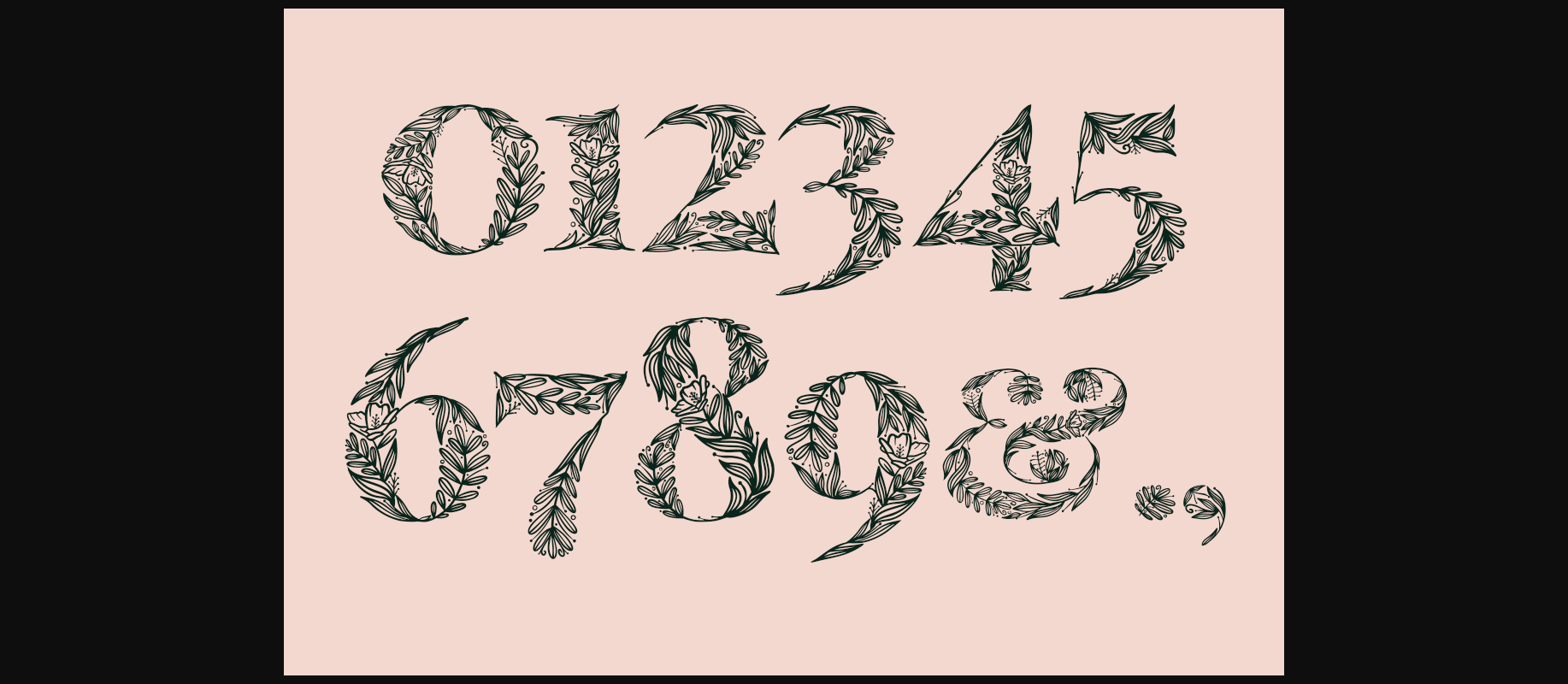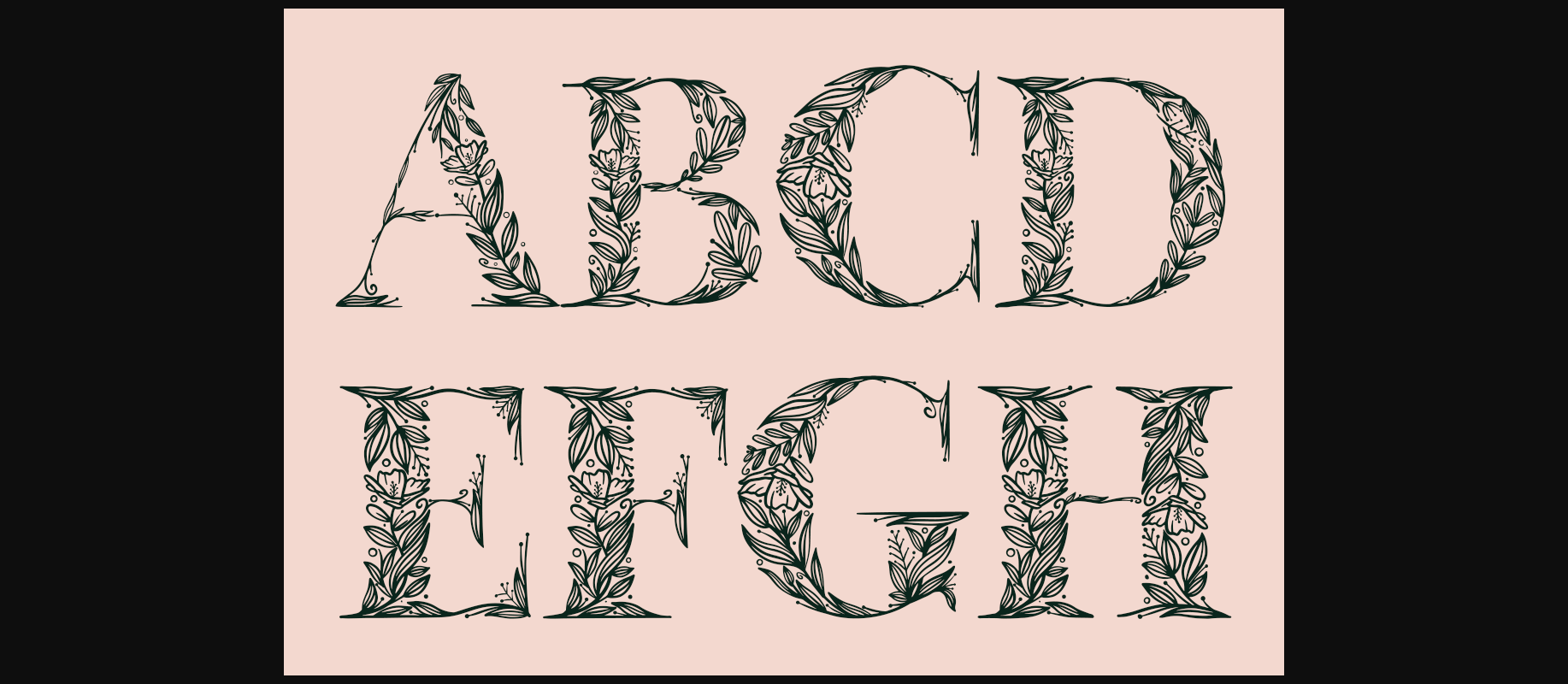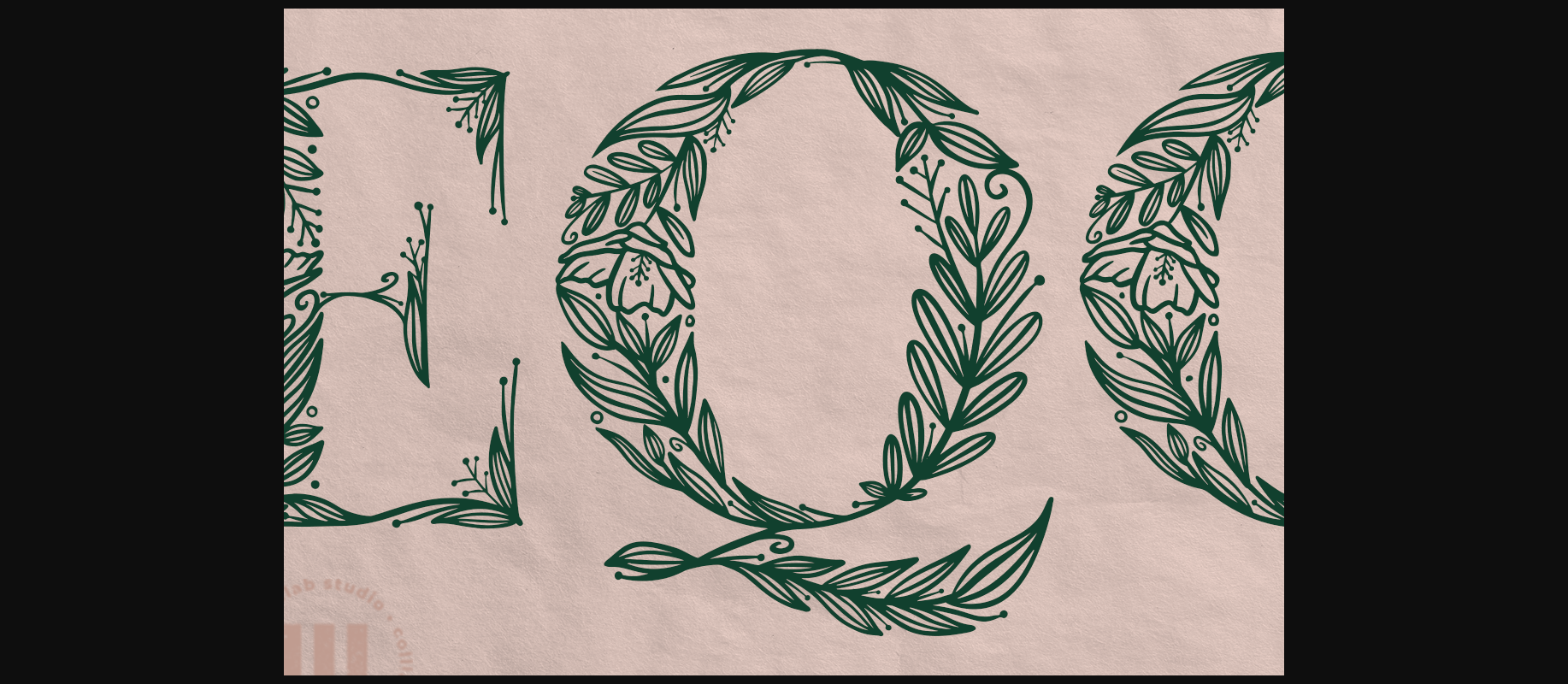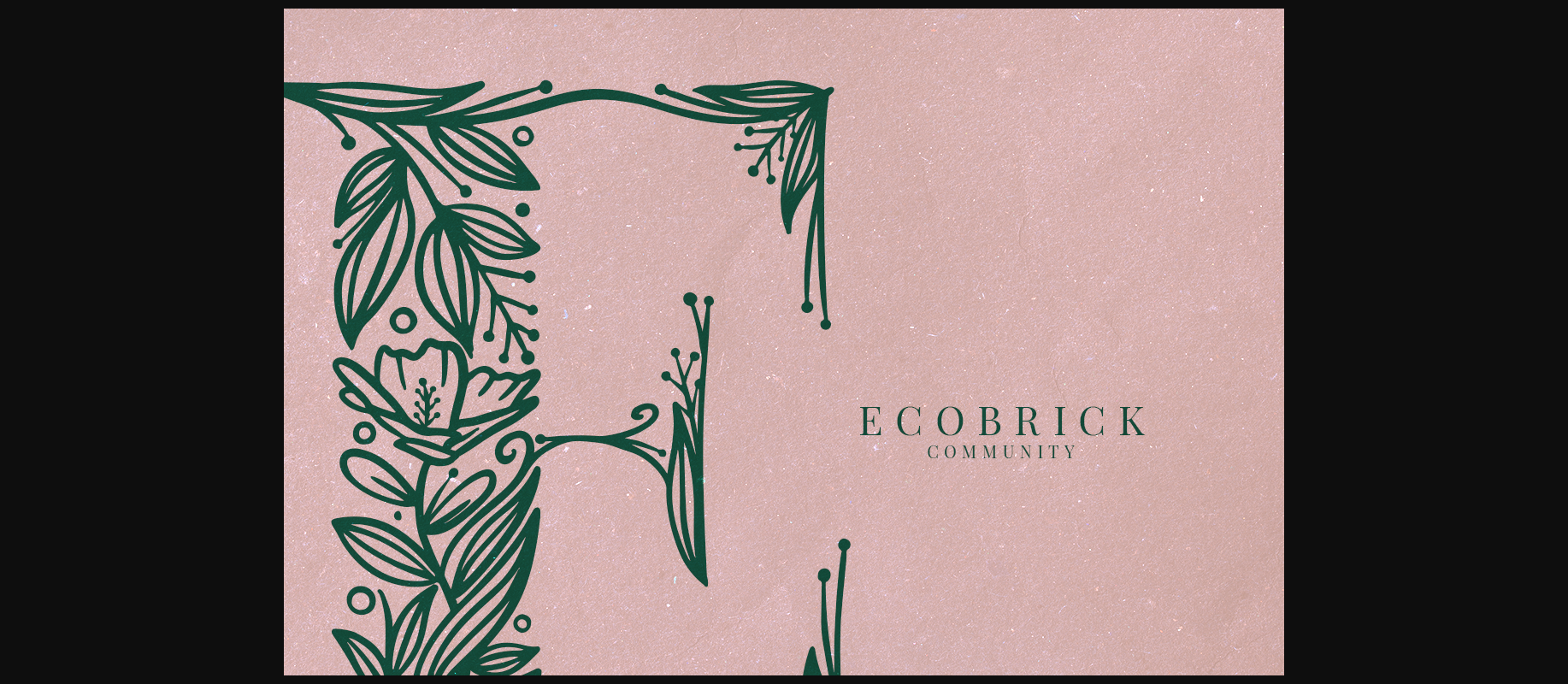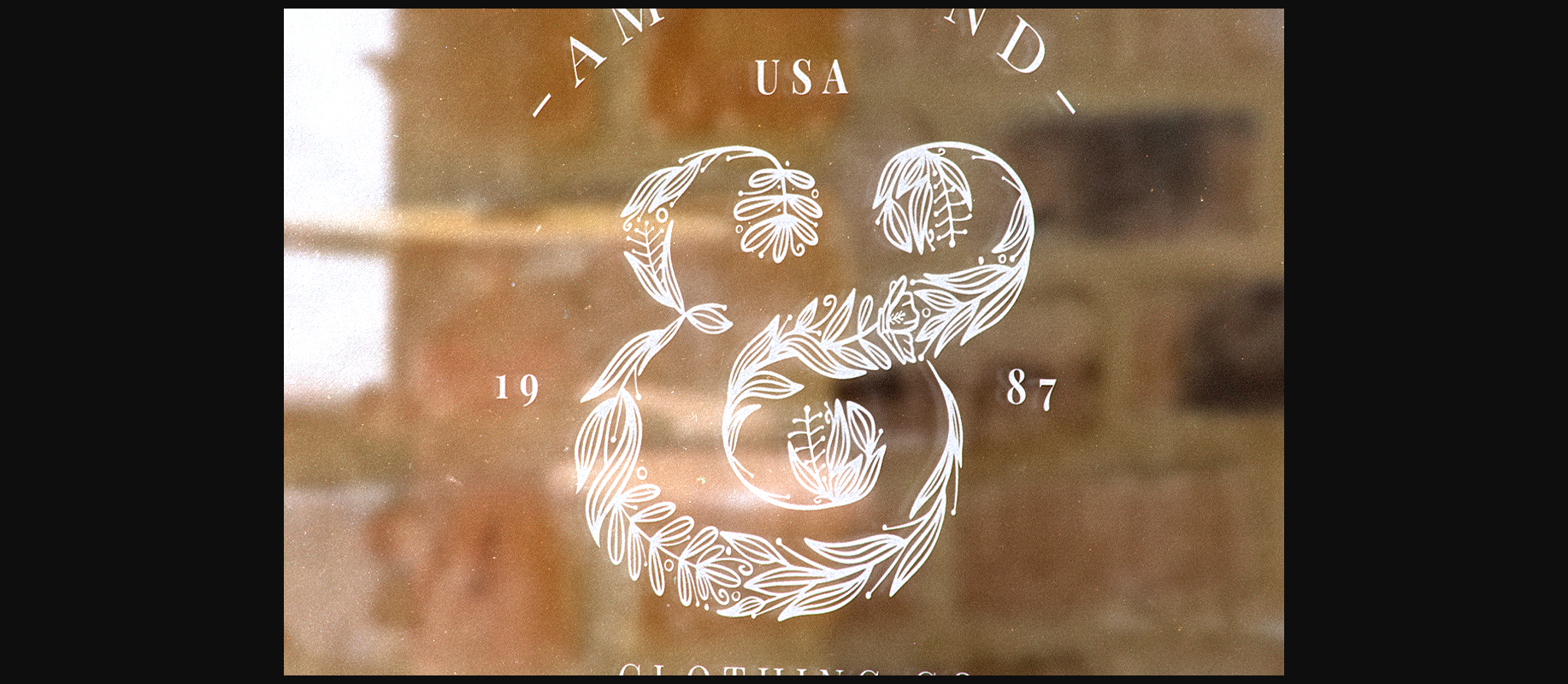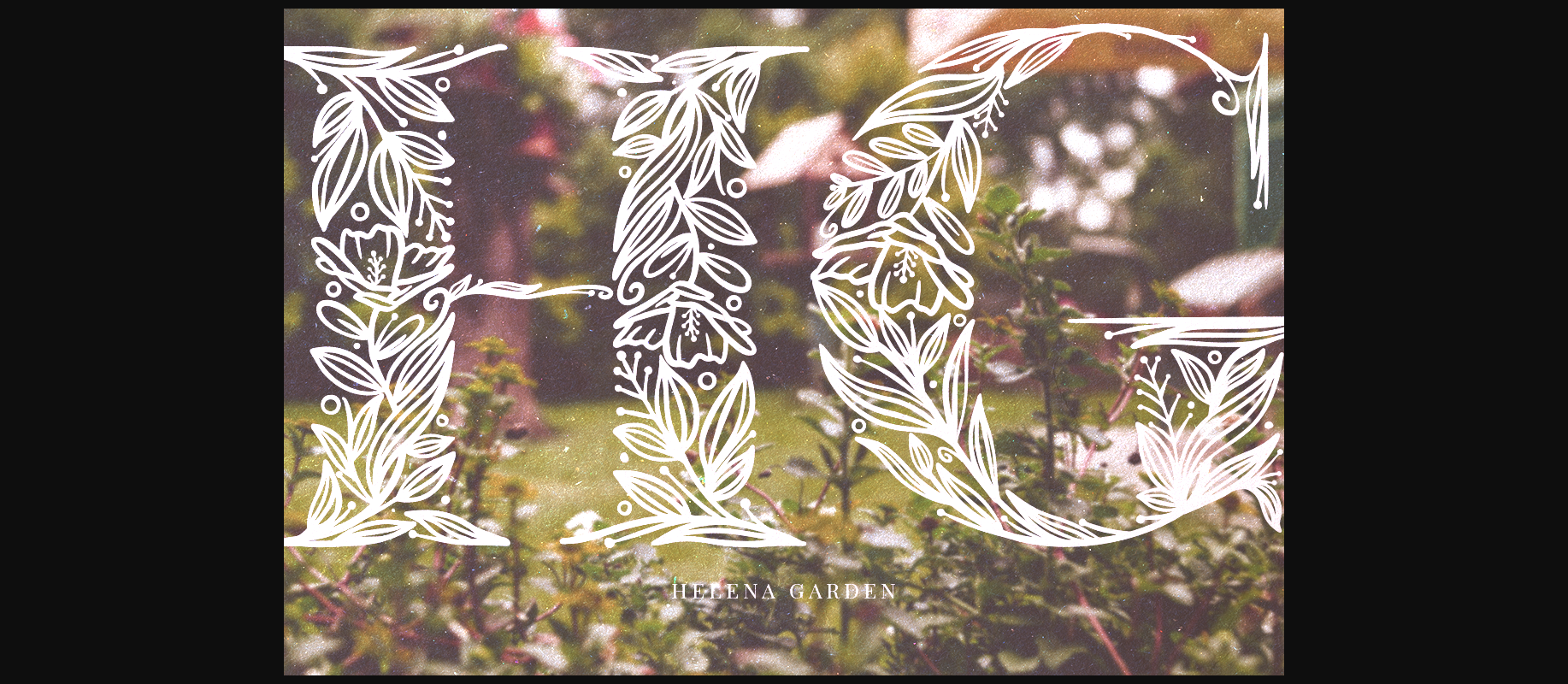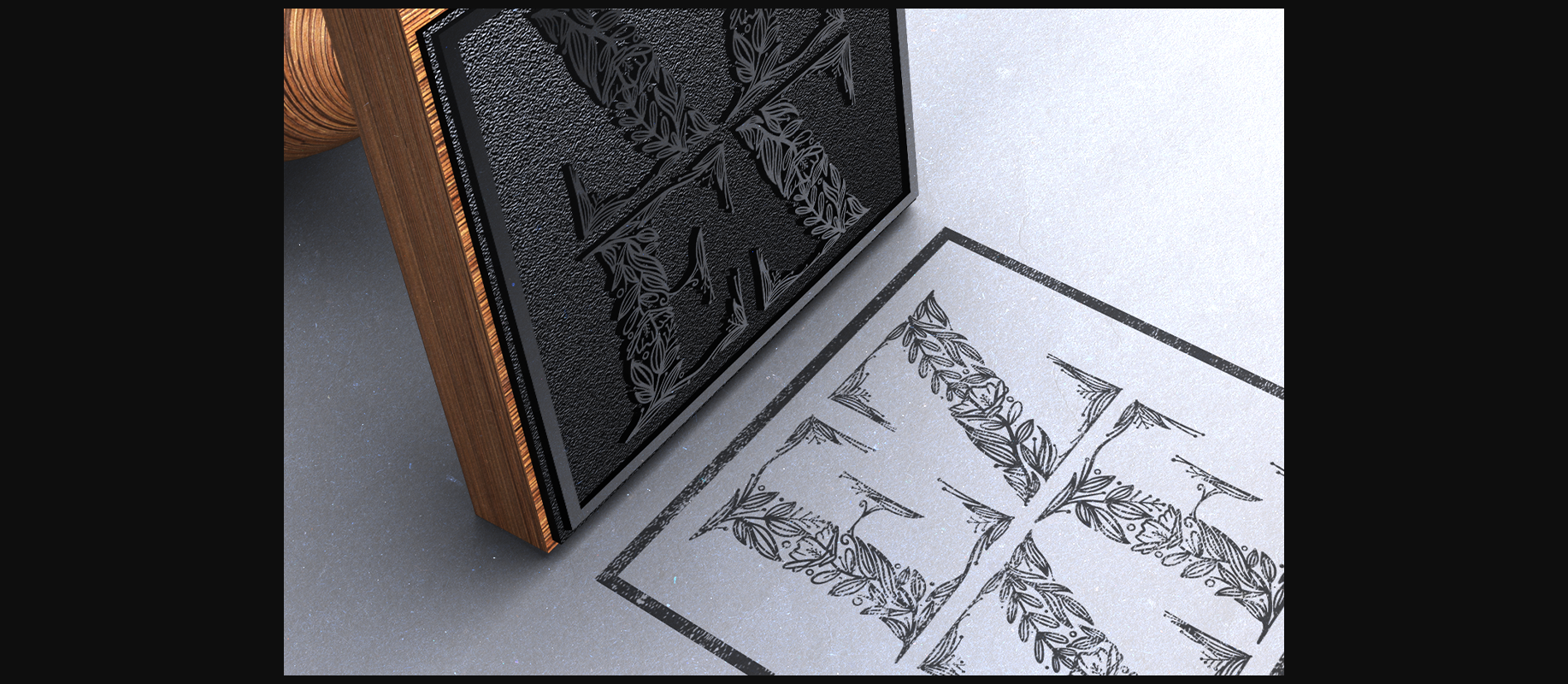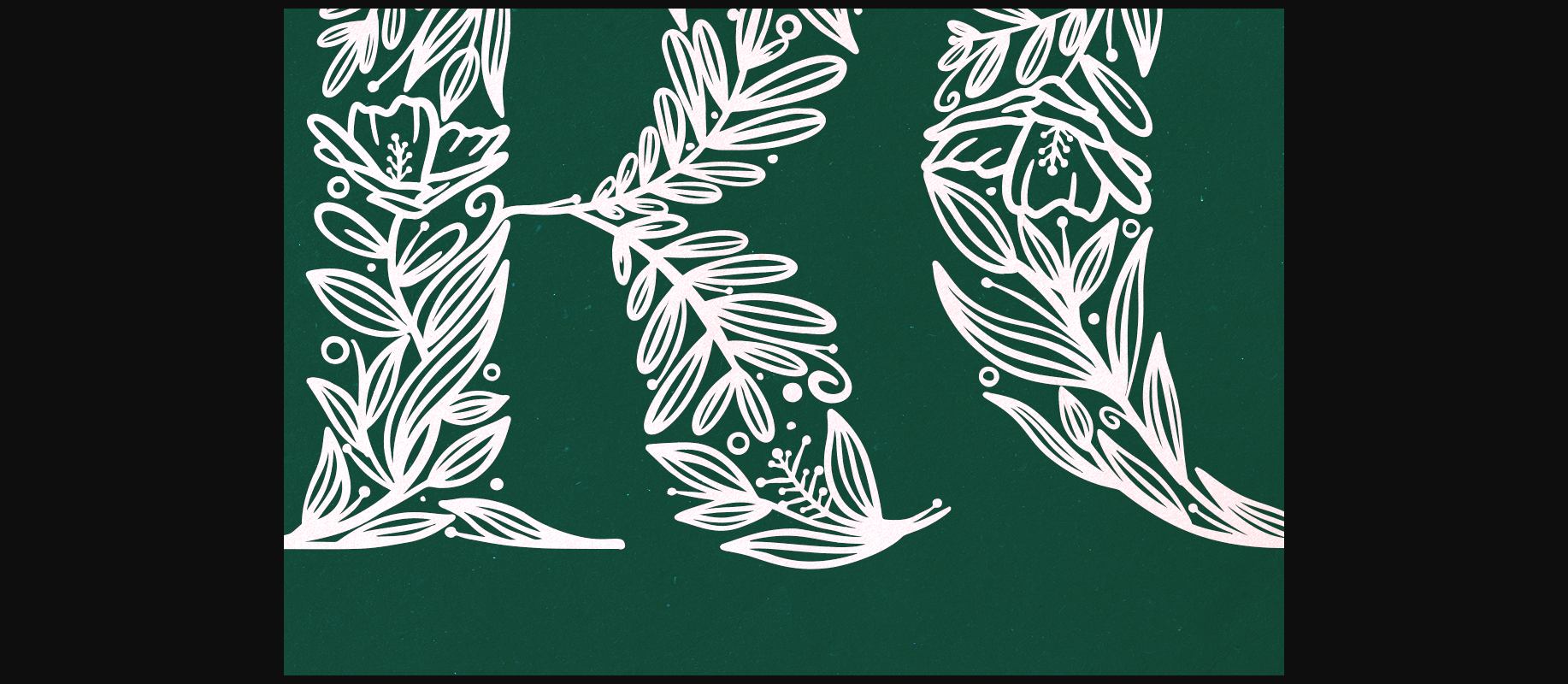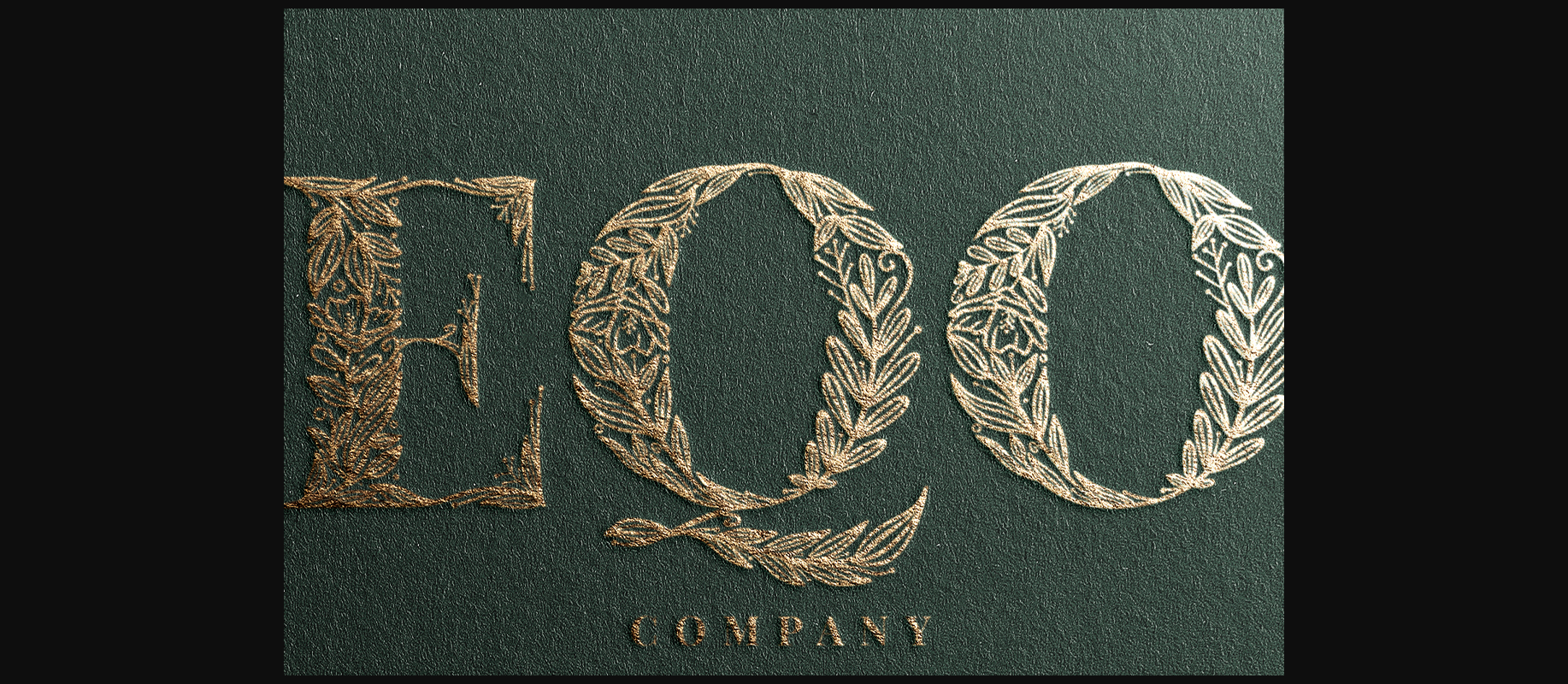
Eqo Font
About Eqo Font
Eqo is an incredibly unique and interesting decorative font. Fall in love with its authentic feel and use it to create gorgeous wedding invitations, beautiful stationary art, eye-catching social media posts, and cute greeting cards.